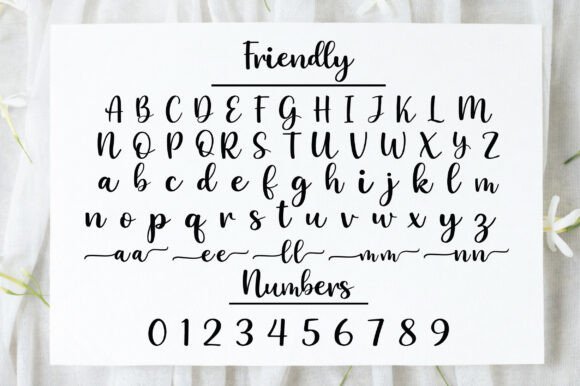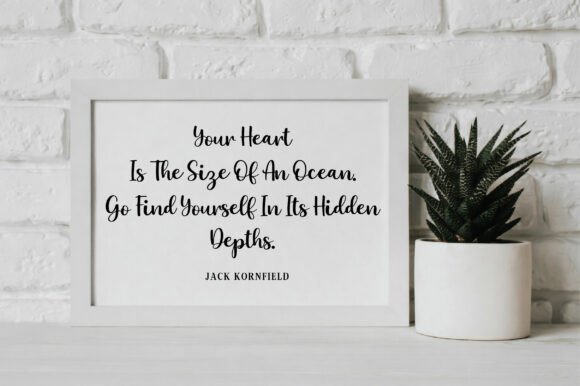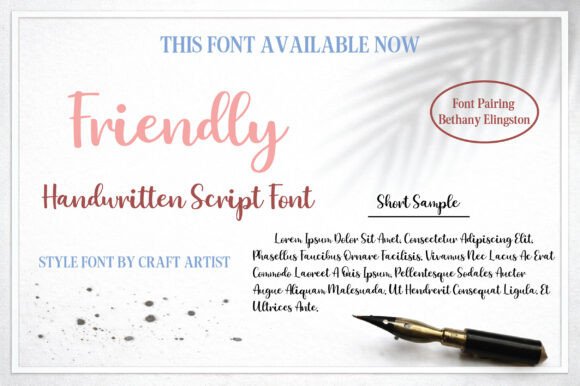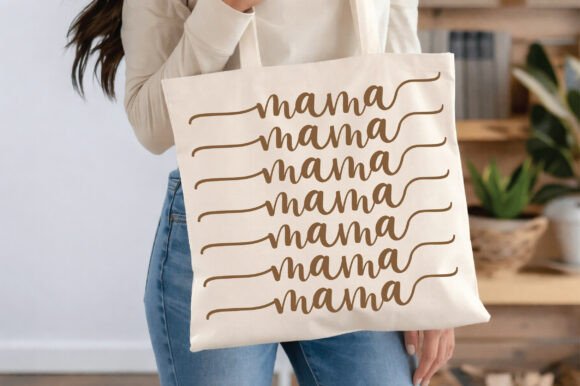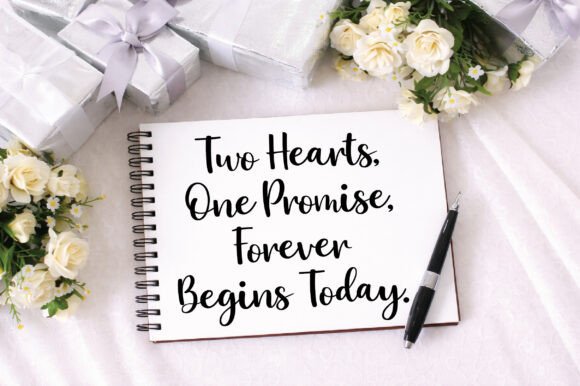
The Friendly Font: Adding a Touch of Warmth and Personality to Your Designs
In the world of design, typography plays a crucial role in conveying the tone and personality of a brand or message. When it comes to creating a warm, natural, and approachable feel, the right font can make all the difference. This is where the Friendly Handwritten typeface comes in – a carefully crafted font designed to bring a sense of authenticity and connection to your designs.
The Characteristics of Friendly Font
The Friendly Handwritten font is specifically created for designs that require a personal touch. Its balanced weight and smooth handwritten flow ensure clear readability across both digital and print projects. This makes it an ideal choice for a wide range of applications, from personalized notes and inspirational quotes to logos, watermark text, social media content, blog headers, and marketing materials.
One of the key features of the Friendly Font is its natural and expressive look. The font is designed to mimic the charm of real handwriting, giving your designs a unique and human touch. Whether you’re looking to create a warm and welcoming atmosphere or convey a sense of friendliness and approachability, this font is sure to deliver.
Uses of Friendly Font
The Friendly Handwritten font is incredibly versatile and can be used in a variety of design projects. Here are some of the ways you can use this font to add a touch of warmth and personality to your designs:
- Personalized Notes: Use the Friendly Font to create personalized notes that feel like they were written just for your audience. Whether you’re sending thank-you notes or creating custom invitations, this font is sure to make your message feel special.
- Inspirational Quotes: The Friendly Font is perfect for inspirational quotes that aim to motivate and uplift your audience. Its natural and expressive look makes it easy to convey a sense of warmth and sincerity.
- Logos and Branding: Use the Friendly Font to create a logo or brand identity that feels approachable and friendly. This font is sure to help you establish a strong connection with your audience.
- Social Media Content: The Friendly Font is ideal for social media content that aims to engage and inspire your audience. Use it to create eye-catching graphics, quotes, and updates that feel like they were written just for your followers.
- Blog Headers and Marketing Materials: Use the Friendly Font to create blog headers and marketing materials that feel warm and inviting. This font is sure to help you establish a strong brand voice and connect with your audience.
Benefits of Using Friendly Font
The Friendly Handwritten font offers a range of benefits for designers and crafters. Here are some of the advantages of using this font in your designs:
- Unique and Authentic Look: The Friendly Font has a unique and authentic look that sets it apart from other fonts. Its natural and expressive design makes it easy to convey a sense of warmth and personality.
- Clear Readability: The Friendly Font is designed to be clear and readable, making it perfect for both digital and print projects. Its balanced weight and smooth handwritten flow ensure that your message is easy to understand.
- Versatility: The Friendly Font is incredibly versatile and can be used in a wide range of design projects. Whether you’re creating personalized notes or marketing materials, this font is sure to deliver.
| Font Name | Friendly Font |
| Author | Craft Artist |
The Friendly Handwritten font is a powerful tool for designers and crafters who want to add a touch of warmth and personality to their designs. Its natural and expressive look, combined with its clear readability and versatility, make it an ideal choice for a wide range of applications. Whether you’re creating personalized notes, inspirational quotes, logos, or marketing materials, the Friendly Font is sure to help you establish a strong connection with your audience. So why not give it a try and bring the charm of real handwriting into your designs?